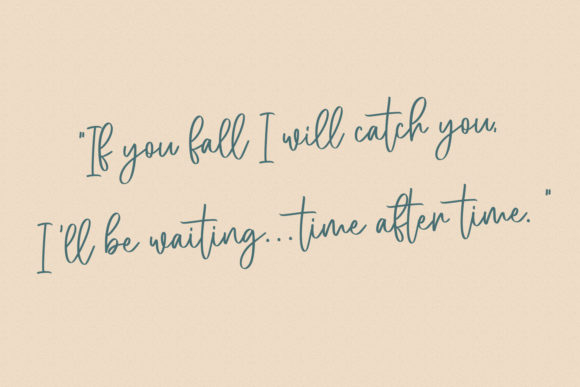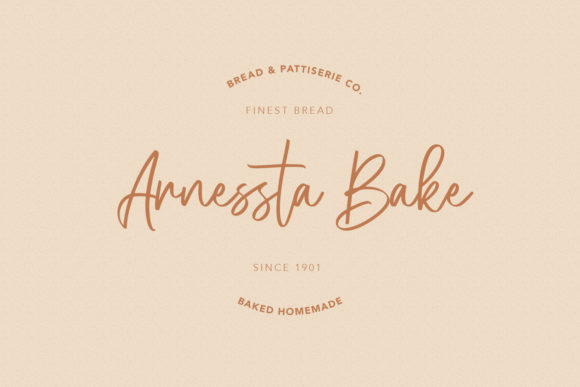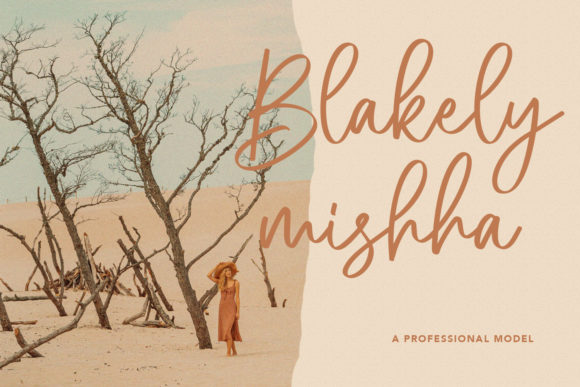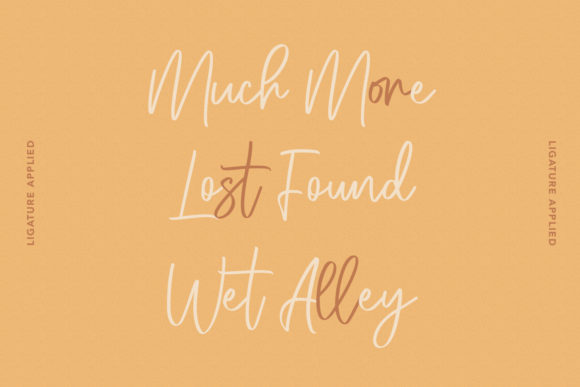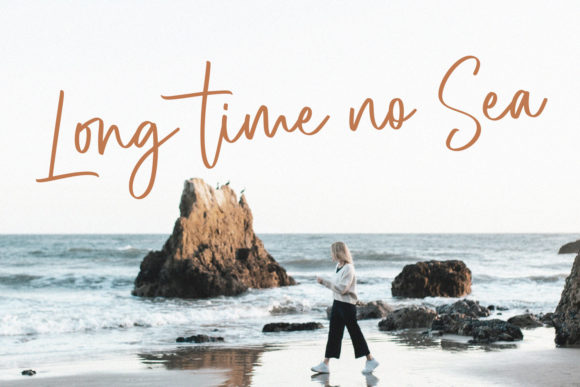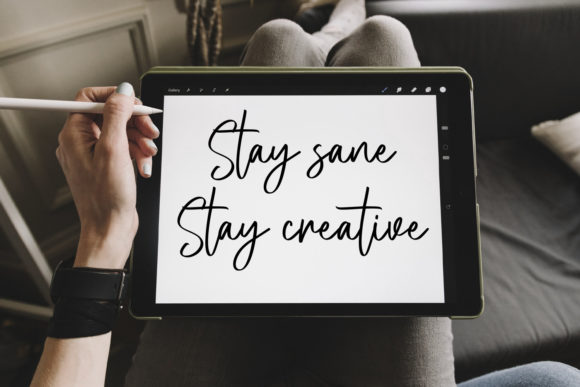
Introduction to Melly Hailey Font
Have you ever been in the midst of a creative project, staring at a blank canvas, and feeling like something is missing? That’s where the perfect font can make all the difference. For designers, the right font can elevate an entire design and make it truly shine. And that’s exactly what the Melly Hailey Font does – it adds a touch of personality and charm to any project.
This relaxed, flowing, and jolly script font is a game-changer for designers looking to add a high-quality, yet effortless feel to their designs. With its transparent background, it’s perfect for a wide range of creative projects, from wedding invitations to social media graphics. And the best part? The Melly Hailey Font is available for free download, making it an invaluable design resource for designers of all levels.
Key Features of Melly Hailey Font
- High-quality font designed for creative projects, perfect for digital and print use.
- Unique characteristics: includes a wide range of stylish and modern glyphs, perfect for adding a touch of elegance to any design project.
Honest Review: Melly Hailey Font
I recently had the chance to work with the Melly Hailey Font, and I’m excited to share my honest review. As a designer, I’m always on the lookout for high-quality fonts that can elevate my creative projects.
What works well: ✨ The Melly Hailey Font is a beautiful, modern script font that’s perfect for titles and headings. It’s highly legible and easy to read, even at small font sizes. I also appreciate the transparent background, which makes it easy to layer over other design elements.
- Perfect for creative projects: Melly Hailey Font is a great choice for designers who need a high-quality, modern script font.
Limitations: ⚠️ While the Melly Hailey Font is a great choice for most design projects, it may not be suitable for more formal or traditional designs. Additionally, the font is only available in a limited range of weights and styles.
Overall, I’m really impressed with the Melly Hailey Font. It’s a great addition to any designer’s toolkit, and I would highly recommend it for creative projects that require a modern and stylish look.
Tips for Getting the Most Out of Melly Hailey Font
To get the most out of the Melly Hailey Font, use it with a transparent background to create a clean and modern design. You can also experiment with different font sizes and styles to create a unique look for your creative project.
The Melly Hailey Font is commonly used for a variety of creative projects, including logos, branding materials, and social media graphics. It’s a versatile font that works well for both digital and print designs.